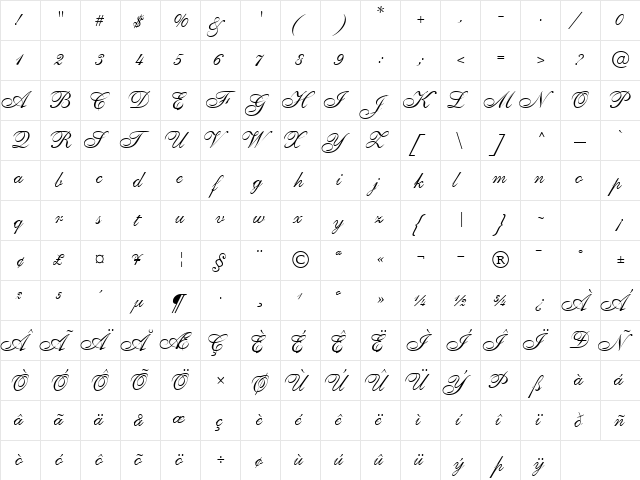
PenTweaksOneSSK Regular Font Preview
PenTweaksOneSSK Regular
Design Context for PenTweaksOneSSK Typeface
PenTweaksOneSSK is a composed and adaptable typeface that performs quietly and consistently across a wide range of design contexts.